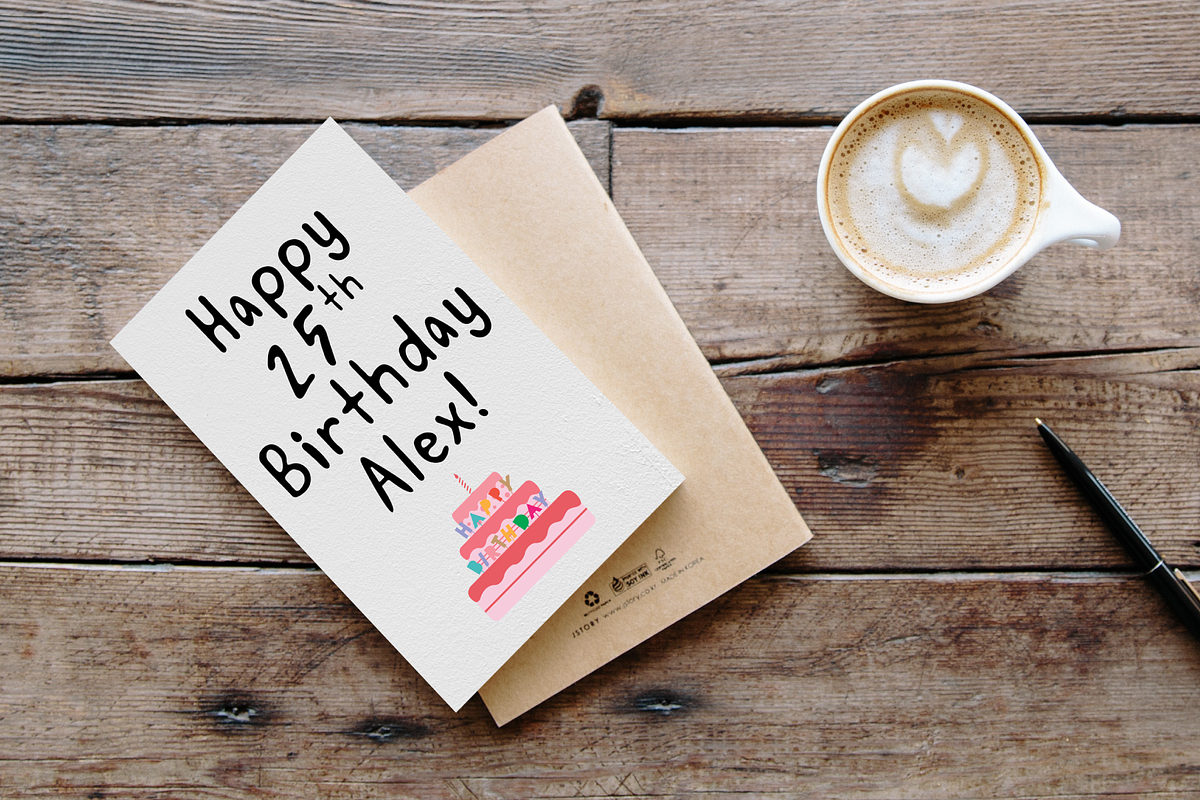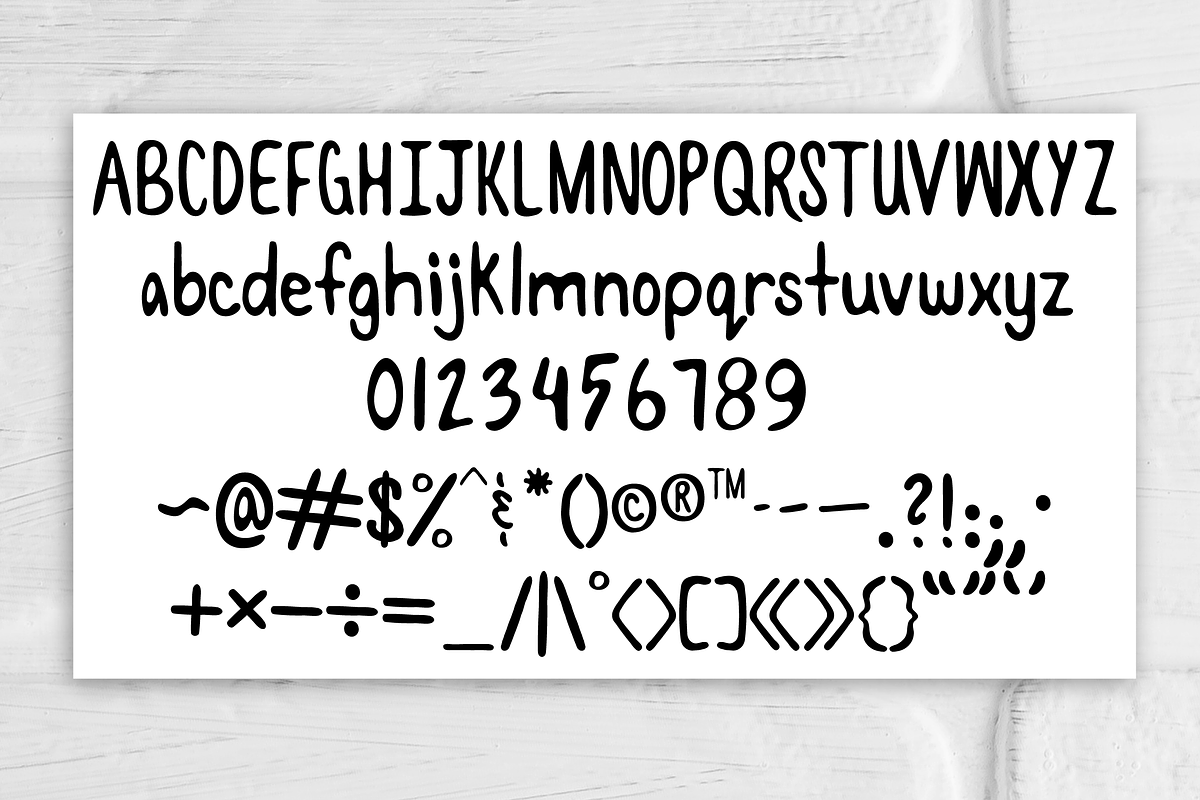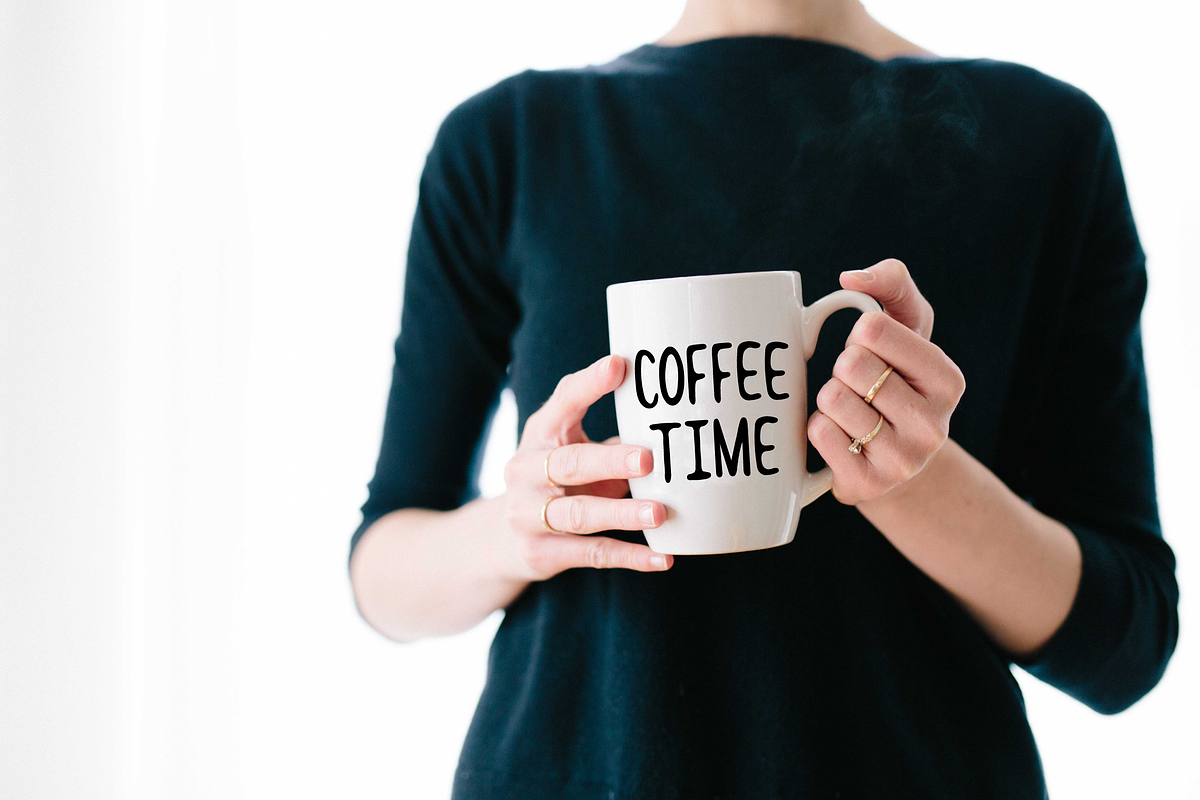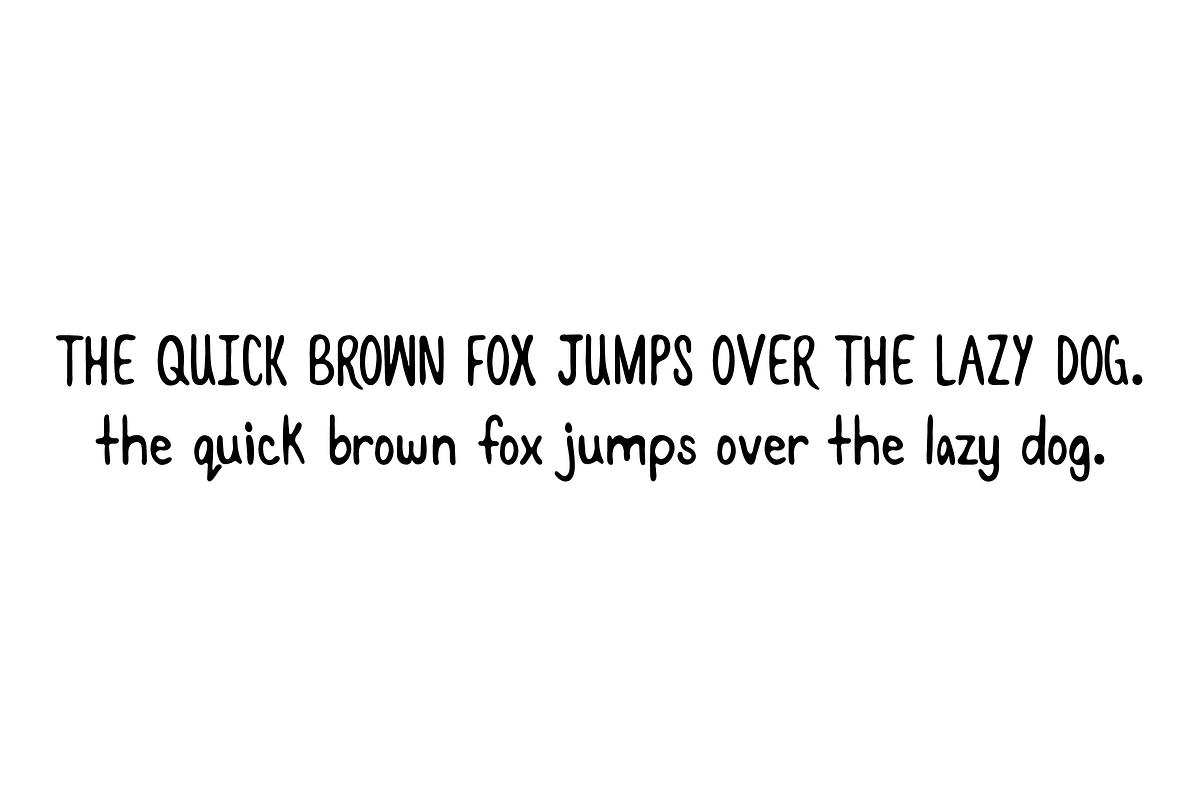
Delighted Handwritten Thick Font
Delighted Handwritten Thick Font by SavanasDesign is a font selected for branding, posters, packaging, typography.
- Delighted Regular
Why Delighted Handwritten Thick Font is worth a look
Delighted Handwritten Thick Font by SavanasDesign fits naturally into Branding, posters, packaging, typography.